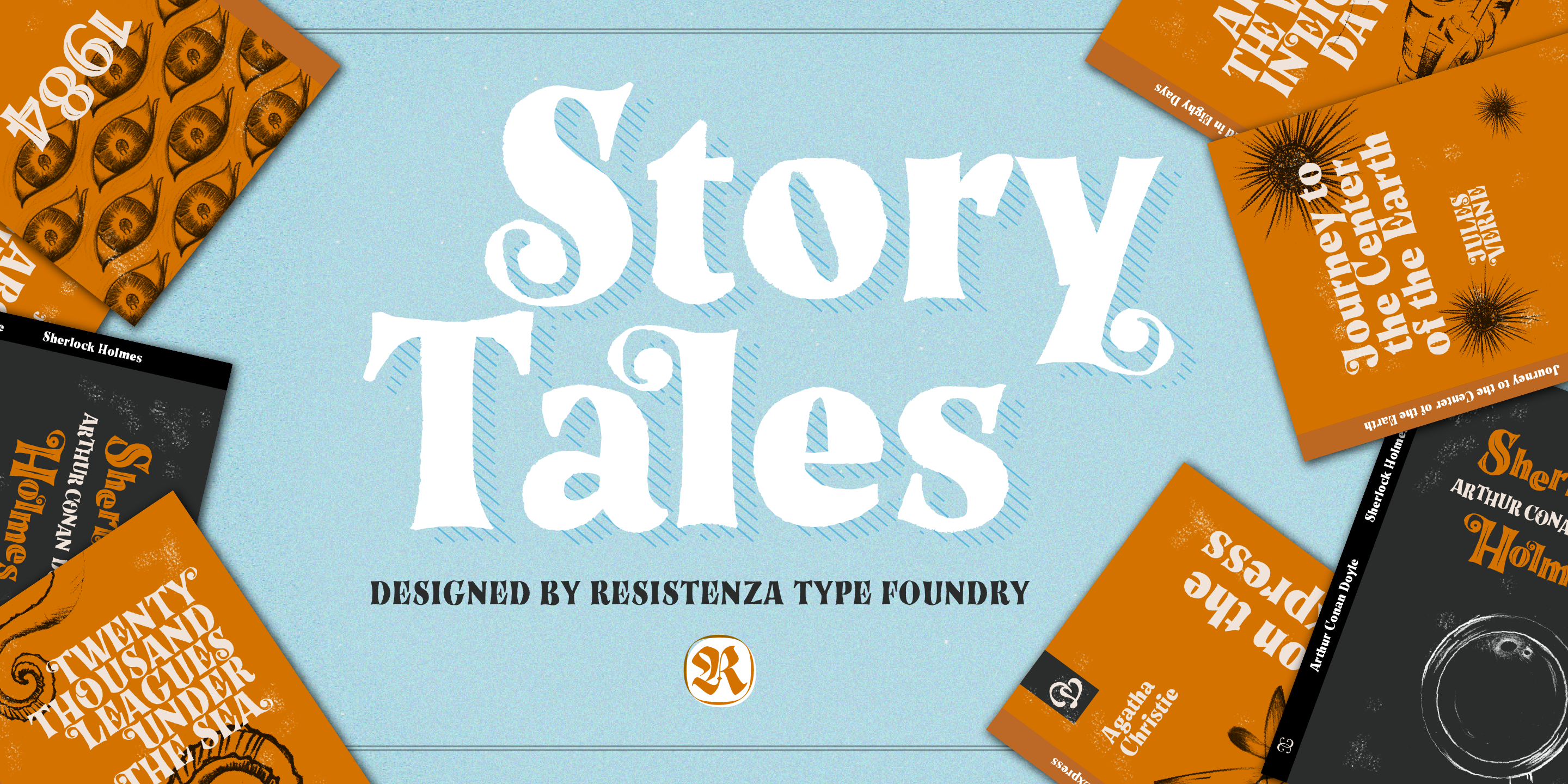
The Story Tales Font is an excellent choice for designs that aim for a whimsical, enchanting, and distinctly storybook-inspired aesthetic. Imagine it gracefully adorning the cover of a magical children's novel, adding a delightful charm to personalized invitations for a fairytale-themed event, or bringing a dreamy, nostalgic feel to handcrafted product labels. It's also perfectly suited for imaginative social media graphics, captivating blog headers, unique greeting cards, and any project where you want to convey a sense of wonder, innocence, and a touch of enchanting beauty. Its often flowing lines, whimsical flourishes, and unique character make it ideal for conveying sincerity and a delightful artistic flair.
What makes the Story Tales Font so exciting is its ability to instantly transport an audience into a world of imagination and narrative. It frequently features subtle imperfections and a natural flow that mimics genuine hand-lettering, making it feel organic and incredibly inviting. This font has a comforting and distinctive personality that can instantly elevate your design, making it feel both quaint and expressively artistic. It’s designed to capture attention with its unassuming beauty, ensuring your message is not just seen, but felt with a sense of delightful authenticity.
The Story Tales Font family typically might be offered in a single, impactful weight to maximize its unique hand-drawn effect, though some variations might include stylistic alternates or unique ligatures that enhance its whimsical appeal. Its primary focus is usually on its distinctive visual impact rather than extensive weight ranges. These variations empower designers to create a truly inviting and memorable display, ensuring the Story Tales Font Free Download can adapt to a wide array of projects while maintaining its signature, charmingly narrative style.